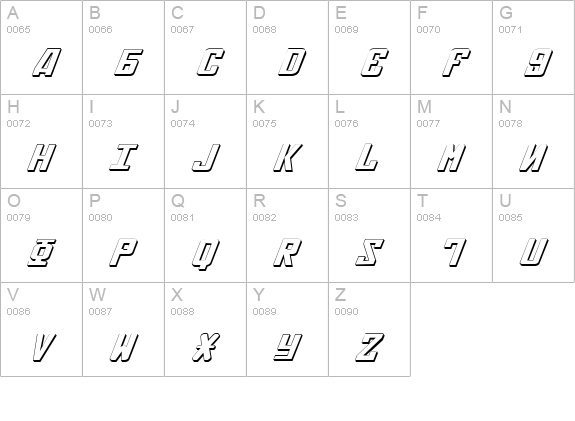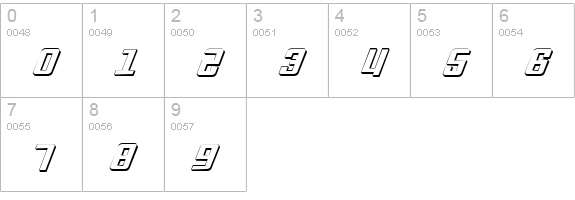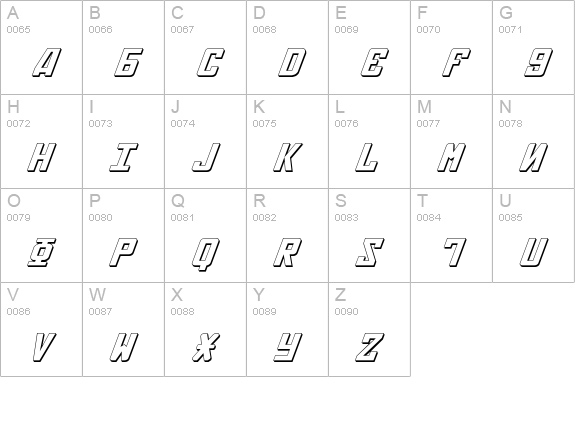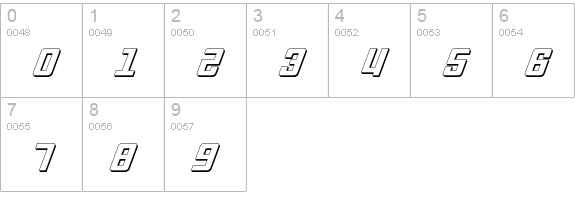
Introducing the Soviet ExpItal 3D font, a captivating typeface that effortlessly merges the boldness of Soviet design with the modern aesthetics of three-dimensional lettering. This font is a true embodiment of strength and dynamism, making it perfect for a wide range of creative projects. With its distinctive geometric forms, Soviet ExpItal 3D font commands attention and demands to be noticed. Each letter is meticulously crafted to exude an air of authority and power, while the three-dimensional effect adds depth and dimensionality to your text. Whether you're designing a poster, logo, or any other visual content, this font will undoubtedly leave a lasting impression. One of the most remarkable aspects of Soviet ExpItal 3D font is that it is freely available to download at FontsMarket.com. This means that you can enhance your designs without any additional cost, making it an excellent choice for budget-conscious creatives or anyone looking to add a touch of Soviet-inspired flair to their projects. The versatility of this font knows no bounds. Its bold presence makes it suitable for projects that require a strong visual impact, such as headlines, titles, or branding materials. Additionally, the three-dimensional aspect of the font adds a sense of depth and realism, making it a fantastic choice for three-dimensional renderings, packaging, or any design that needs to stand out. Soviet ExpItal 3D font is also incredibly easy to work with. Its clean and legible letterforms ensure readability across various sizes and mediums, guaranteeing that your message will always be conveyed effectively. Additionally, its extensive character set includes uppercase letters, numbers, punctuation marks, and special symbols, allowing you to fully express your creativity. In summary, Soviet ExpItal 3D font is a striking and versatile typeface that effortlessly combines the strength of Soviet design with the modern appeal of three-dimensional lettering. Its boldness and three-dimensional effect make it an excellent choice for a wide range of projects, and its availability as a free download on FontsMarket.com makes it even more appealing. Don't miss out on the opportunity to elevate your designs with this captivating font.